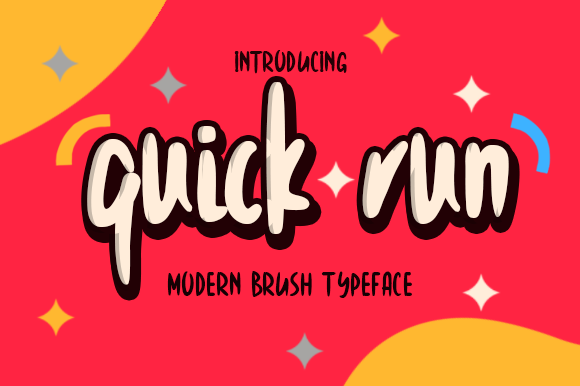
Introducing Quick Run Font, your passport to poetic expression! This exquisite, handcrafted script font grants you the power to transform your words into captivating works of art. Its graceful lines and natural stroke shapes emulate the effortless fluidity of a pen on paper.
Immerse yourself in the realm of poetry posters, where Quick Run Font reigns supreme. Its elegant curves and whimsical charm breathe life into your verses, making every word dance and sing on the page. Unleash your imagination and craft posters that will captivate audiences, leaving an unforgettable imprint on their hearts and minds.
Whether you're designing for children's books, playful flyers, or sophisticated business cards, Quick Run Font serves as your versatile companion. Its adaptability knows no bounds, allowing you to effortlessly elevate any project to new heights of creativity.
Embrace the allure of Quick Run Font, the font meticulously designed by the renowned Bartype. Its every stroke embodies the essence of passion and artistry, empowering you to forge a profound connection with your audience through the written word.